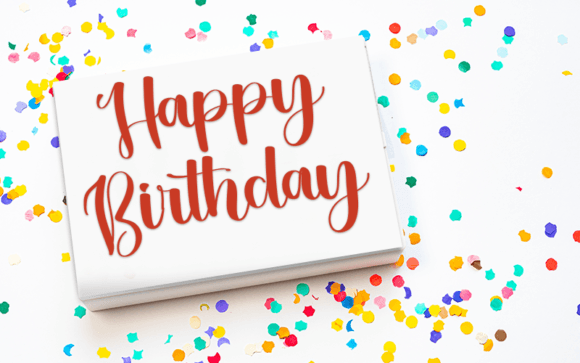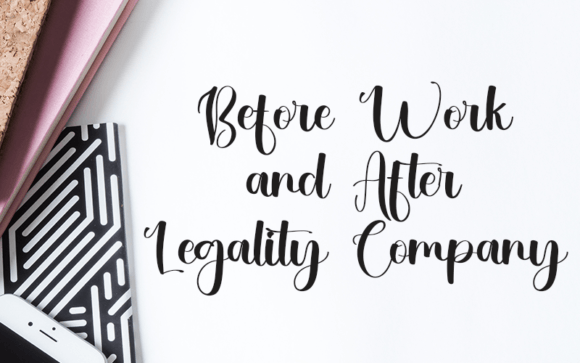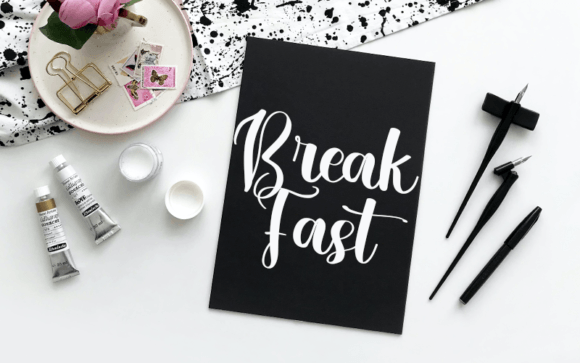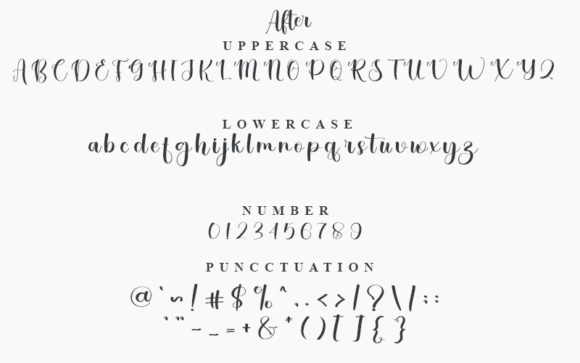
About After Font
“After” is a beautiful and refined handwritten font that combines class and modernity, making it an ideal choice for a wide range of design projects. Whether you’re working on logos, branding, invitations, stationery, wedding designs, social media posts, or any other creative endeavor, “After” brings a touch of elegance to your work.
The font’s appeal lies in its ability to convey a sense of sophistication and contemporary style while maintaining a refined and classy aesthetic. Its handwritten style adds a personal and artistic touch to your designs, making them visually engaging and memorable.
Whether you’re crafting a timeless logo, designing elegant wedding invitations, creating captivating social media posts, or adding a touch of class to your branding materials, “After” is the font that can elevate your work, ensuring that it looks both modern and refined, leaving a lasting and sophisticated impression on your audience.
Embrace “After” with enthusiasm and discover how it enriches your creative projects with its blend of modernity and elegance, making your designs truly exceptional and memorable.